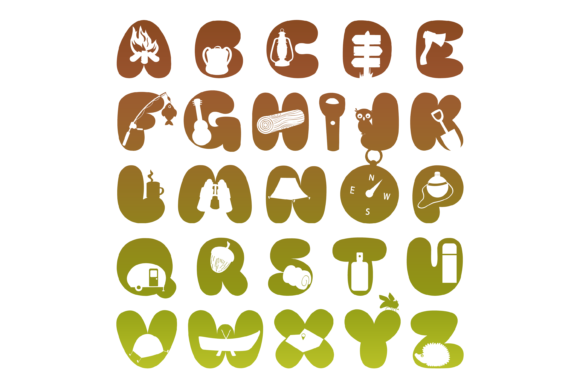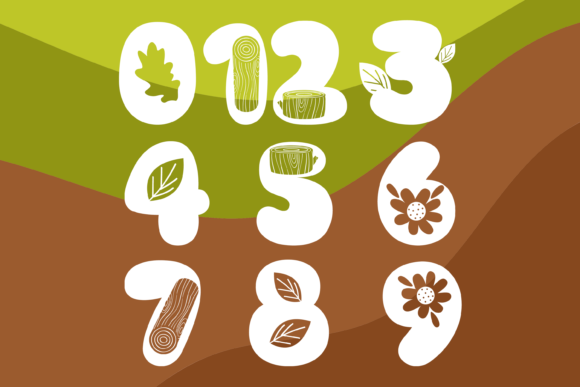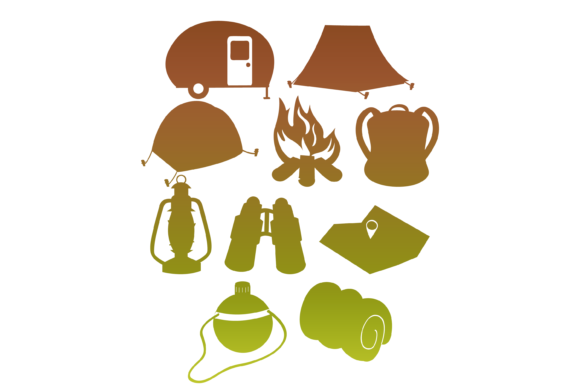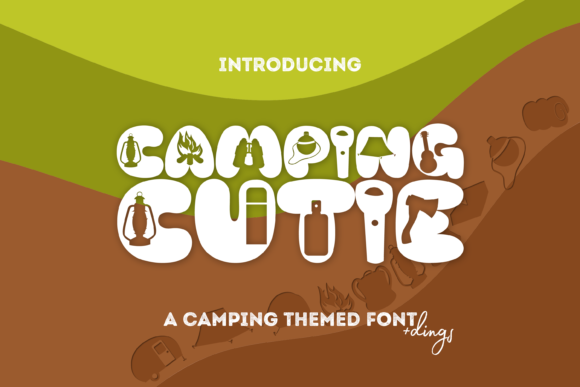
Camping Cutie Font: The Perfect Addition to Your Outdoor-Inspired Designs
Are you a designer or crafter looking for a unique and playful font to add to your outdoor-inspired projects? Look no further than the Camping Cutie font! This lovely decorative font is perfect for camping projects and can be used to create a wide range of designs, from apparel and stationery to camping gear and more.
What is Camping Cutie Font?
Camping Cutie font is a carefully crafted decorative font that captures the essence of the great outdoors. Its playful and adventurous vibe makes it perfect for designers and crafters who want to add a personal touch to their projects. The font features a unique and charming design, with letters that are reminiscent of handwritten signs and rustic outdoor decor.
Features of Camping Cutie Font
- Unique and Playful Design: The Camping Cutie font features a one-of-a-kind design that is sure to stand out in any project.
- High-Quality Vector Graphics: The font is made up of high-quality vector graphics, ensuring that it looks great in any size or resolution.
- Easily Editable: The font is easily editable, allowing you to customize it to fit your specific needs.
Uses for Camping Cutie Font
The Camping Cutie font is incredibly versatile and can be used in a wide range of projects, including:
- Apparel Designs: Add the Camping Cutie font to t-shirts, hoodies, hats, and more to create unique and eye-catching outdoor-inspired apparel.
- Stationery and Paper Crafts: Use the font to create custom stationery, cards, and paper crafts that are perfect for camping enthusiasts.
- Camping Gear: Add the font to camping gear such as water bottles, coffee mugs, and tote bags to create functional and stylish items.
- Signs and Decals: Use the font to create custom signs and decals for your campsite or outdoor business.
Why Choose Camping Cutie Font?
There are many fonts available that are similar to Camping Cutie, but there are several reasons why it stands out from the crowd:
- Unique Design: The Camping Cutie font features a truly unique design that is sure to stand out in any project.
Tips for Using Camping Cutie Font
Here are a few tips for getting the most out of the Camping Cutie font:
- Experiment with Different Sizes and Colors: Don’t be afraid to experiment with different sizes and colors to find the look that works best for your project.
- Pair it with Other Fonts: The Camping Cutie font pairs well with other fonts, so don’t be afraid to get creative and try out different combinations.
- Use it to Add a Personal Touch: The Camping Cutie font is perfect for adding a personal touch to your projects, so don’t be afraid to get creative and add your own unique spin.
The Camping Cutie font is a unique and versatile font that is perfect for designers and crafters who want to add a personal touch to their outdoor-inspired projects. With its playful and adventurous vibe, high-quality vector graphics, and easily editable design, it’s the perfect addition to any project. Whether you’re creating apparel designs, stationery, camping gear, or more, the Camping Cutie font is sure to be a hit. So why wait? Download the Camping Cutie font today and start creating your own unique outdoor-inspired designs!